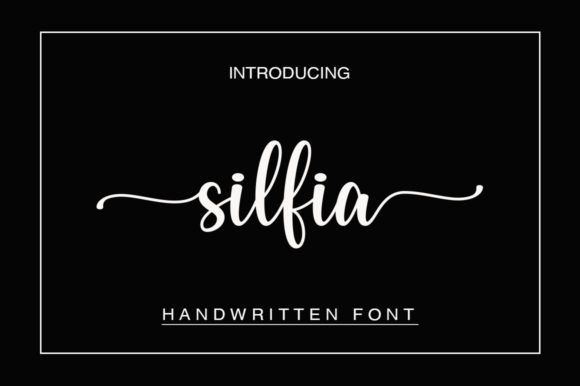
Prepare to be captivated by Silfia, a script font that exudes elegance and playfulness. Its charming characters dance gracefully across the baseline, adding a touch of whimsy to your creative endeavors.
Imagine your wedding invitations adorned with Silfia's graceful curves. Each letter becomes a work of art, transforming your special day into an unforgettable affair. The font's PUA encoding ensures effortless access to a world of glyphs and swashes, empowering you to unleash your creativity.
Silfia is not just a font; it's an invitation to express your emotions with style. Whether crafting heartfelt letters, designing enchanting logos, or creating captivating social media posts, Silfia will elevate your words to new heights.
With Silfia, you're not just downloading a font; you're acquiring a timeless treasure that will bring joy and inspiration to all your creations. Embrace the magic of Silfia today and let your imagination soar.